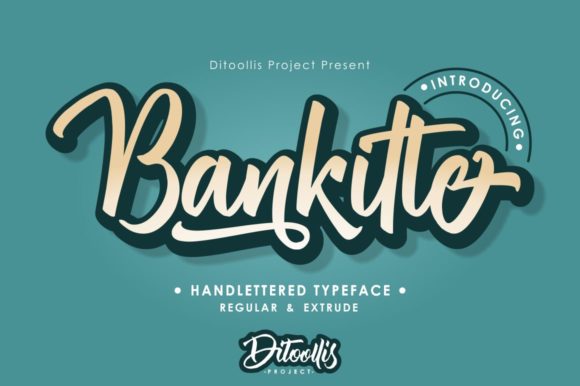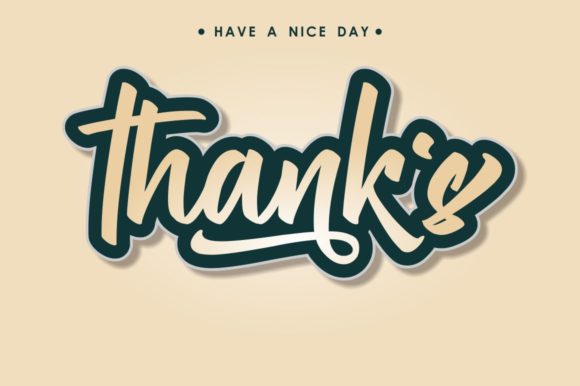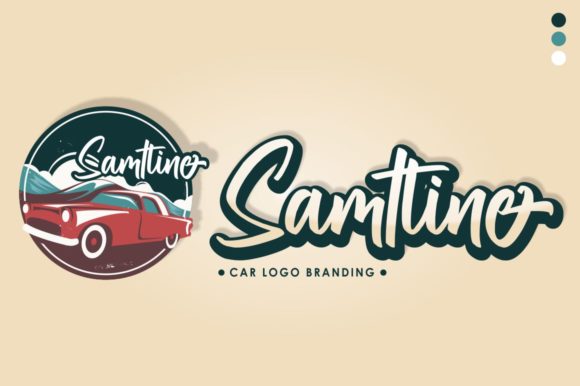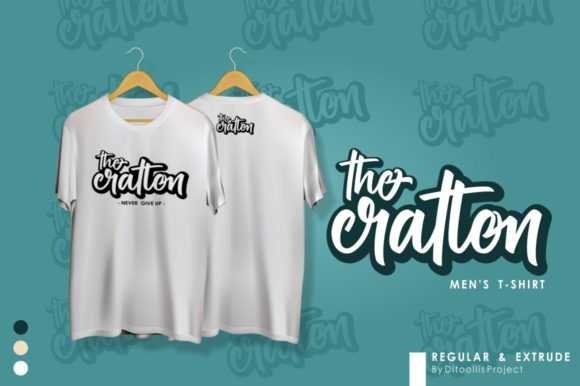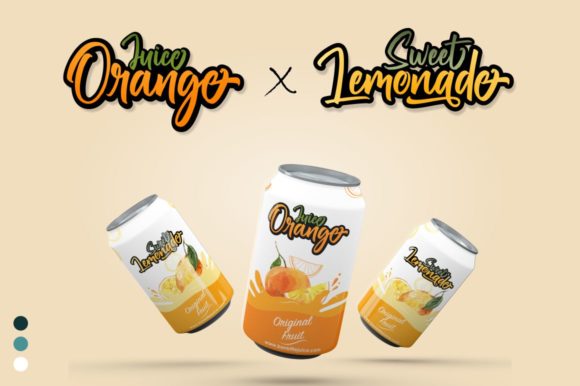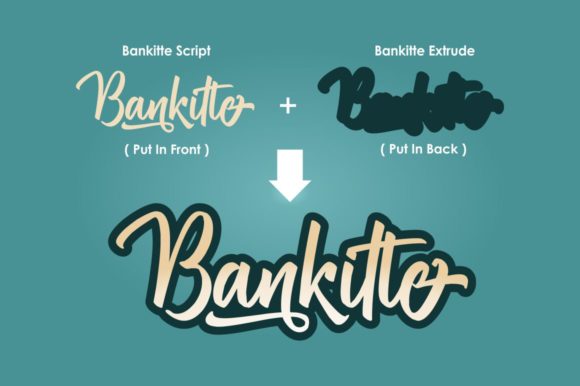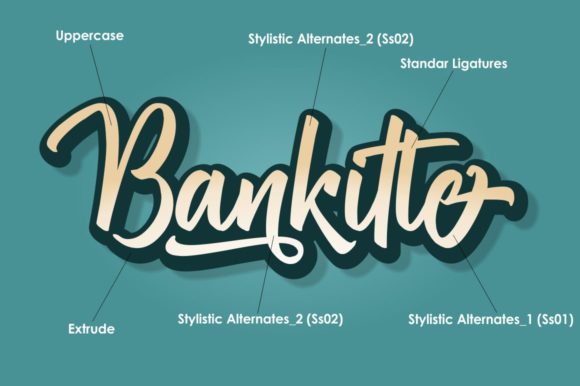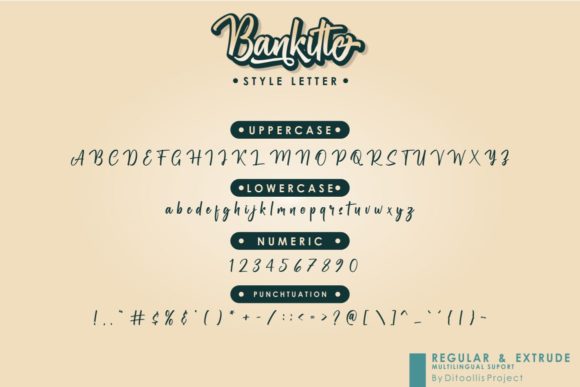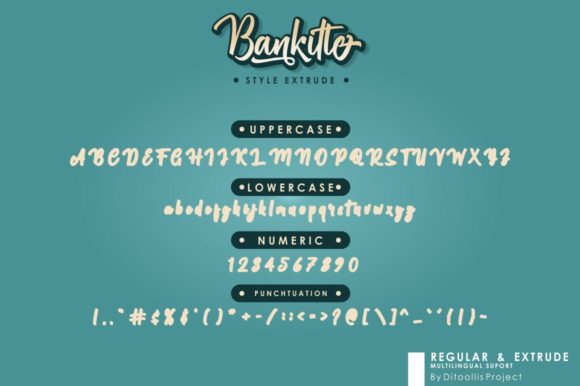
Bankitte Font
About Bankitte Font
Bankitte is a playful and dynamic script font that’s suitable for invitations, logos, business cards, covers, on shirts, for quotes and much more!